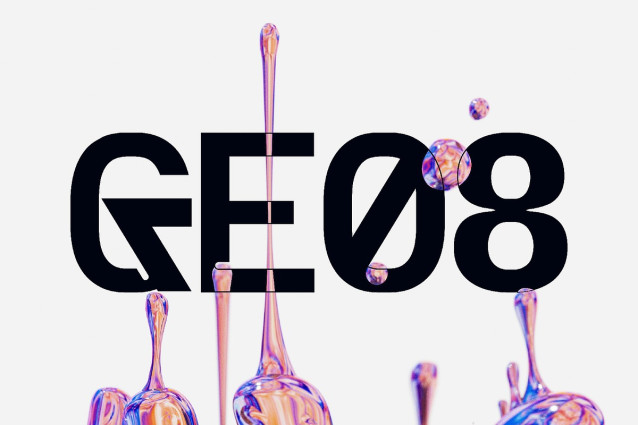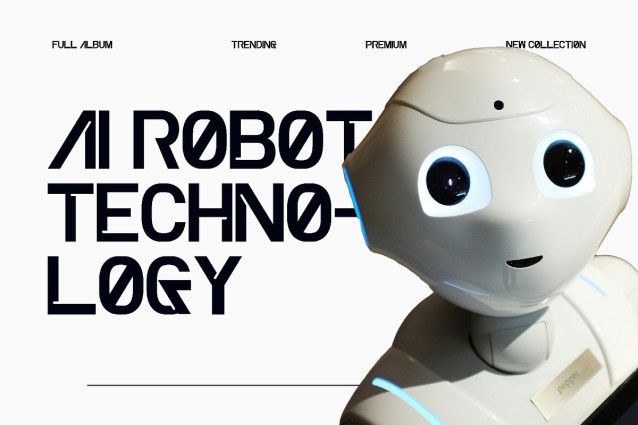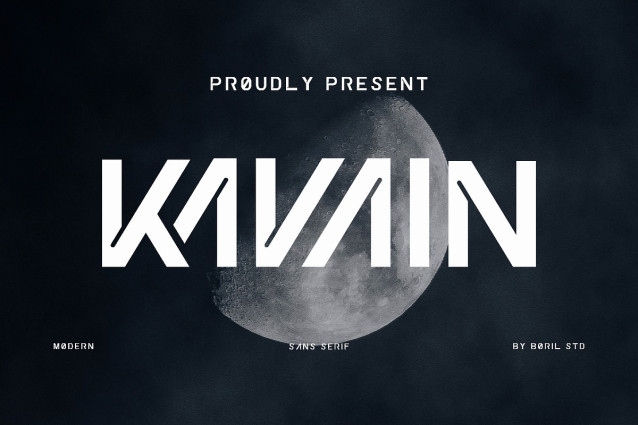
Kavain Font
Kavain Font – Features bold uppercase letters, bold strokes and modern geometric shapes. This font has a technological and experimental feel. Its modern, technological, experimental and edgy look is suitable for branding technology fields, creative industries, futuristic fashion or tech/cyber themed gaming.